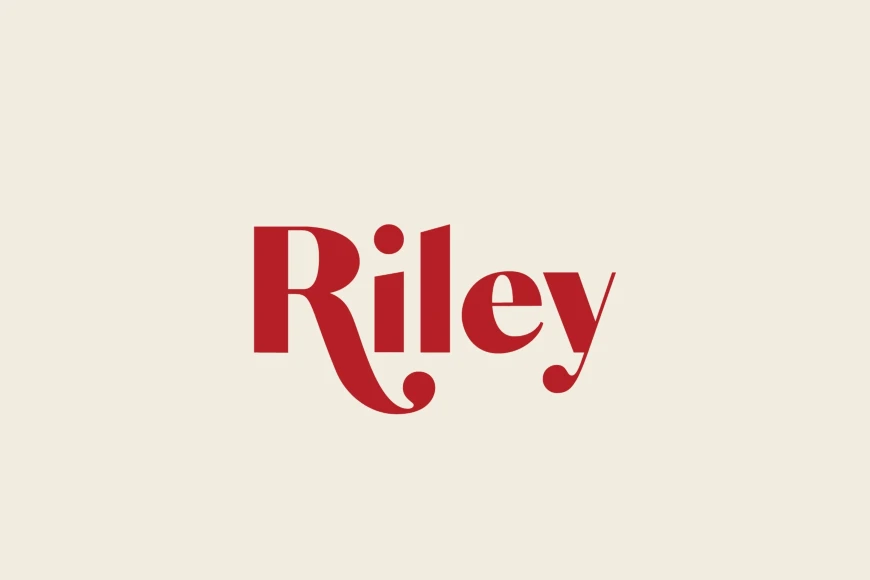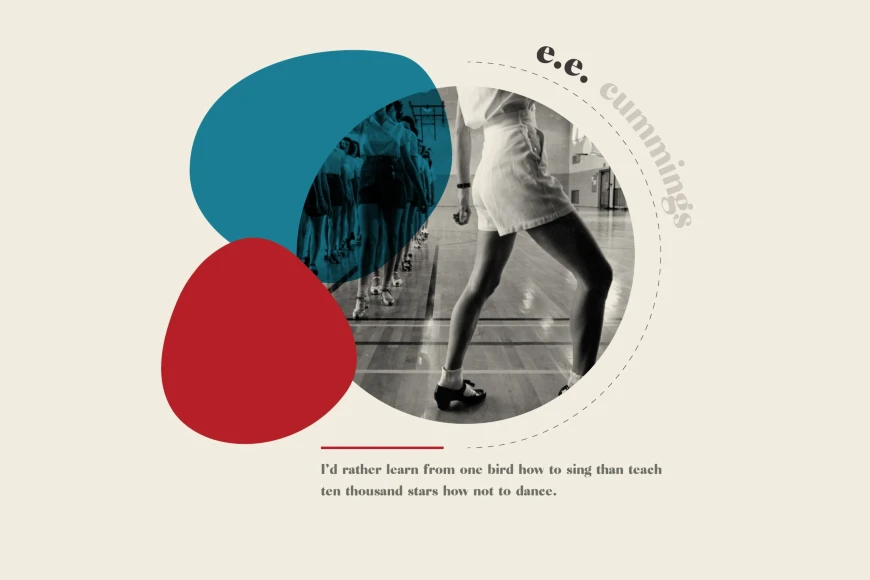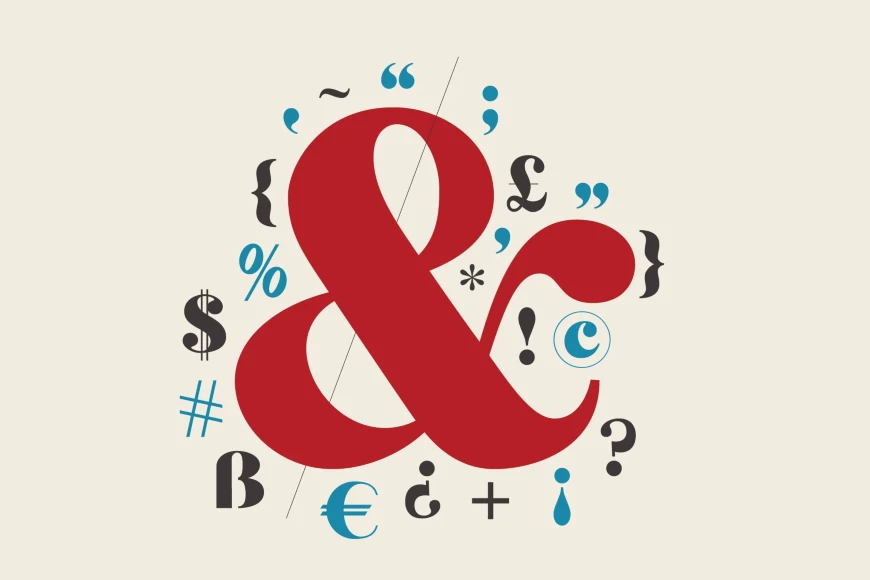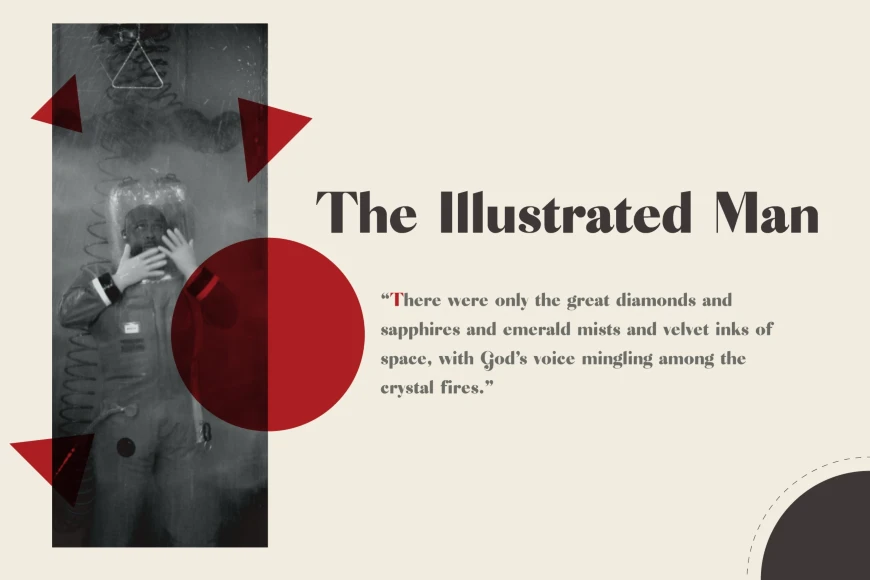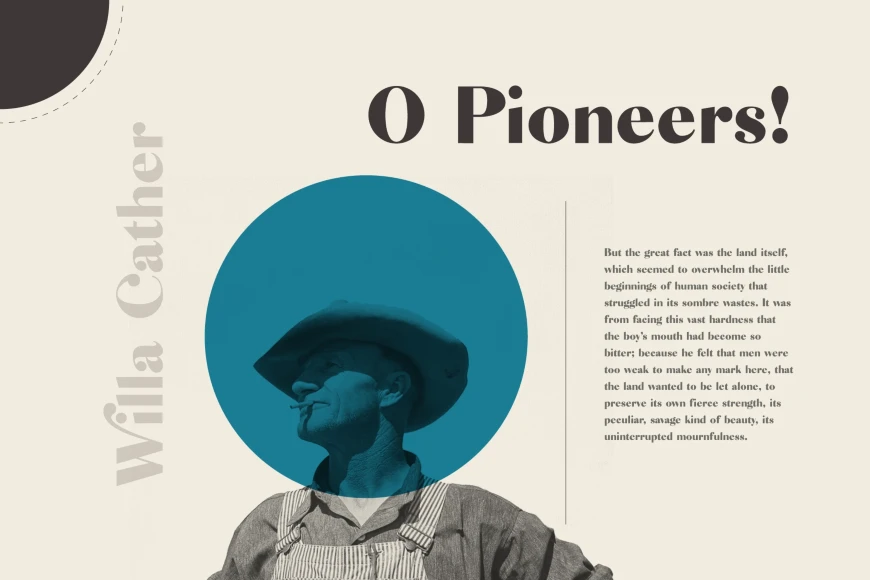
Riley
Riley is a modern, high-contrast sans serif with bold letterforms and sweeping details. It was inspired by vintage typography, making this typeface perfect for creating stylish, eye-catching headlines, striking editorials, and branding with a distinctive personality. Riley brings a unique aesthetic to logos, invitations, graphic quotes, and more. Create something beautiful today with Riley.